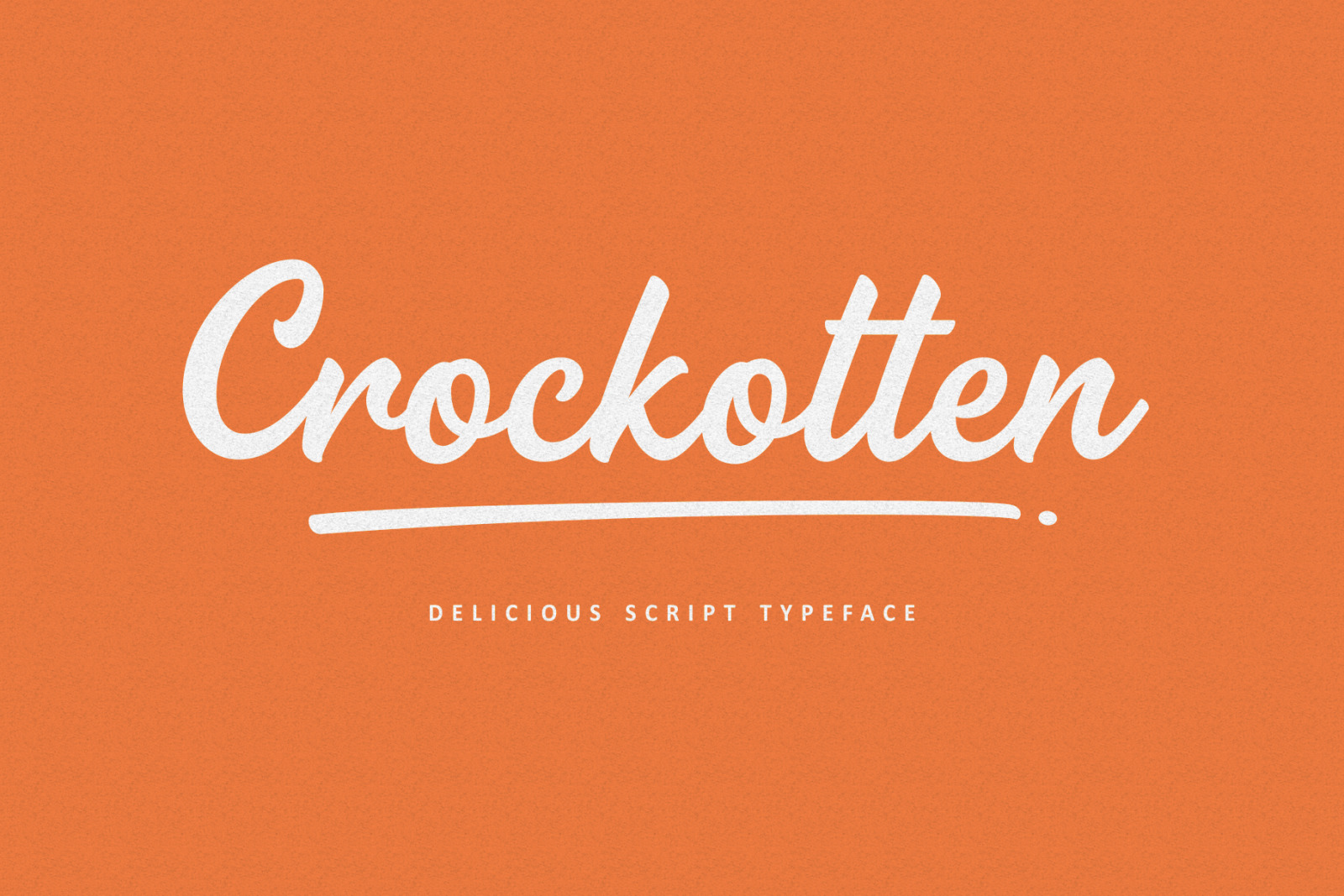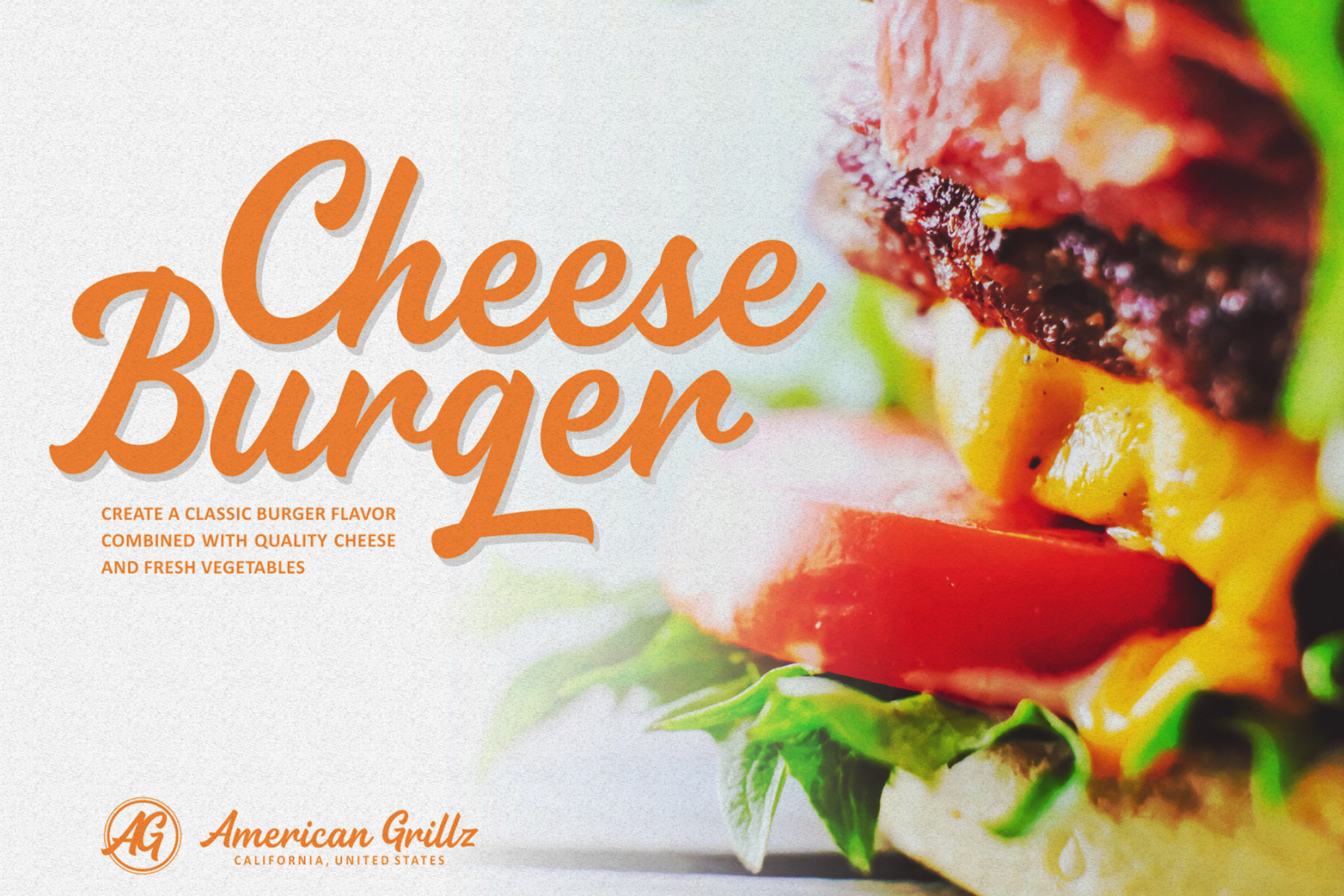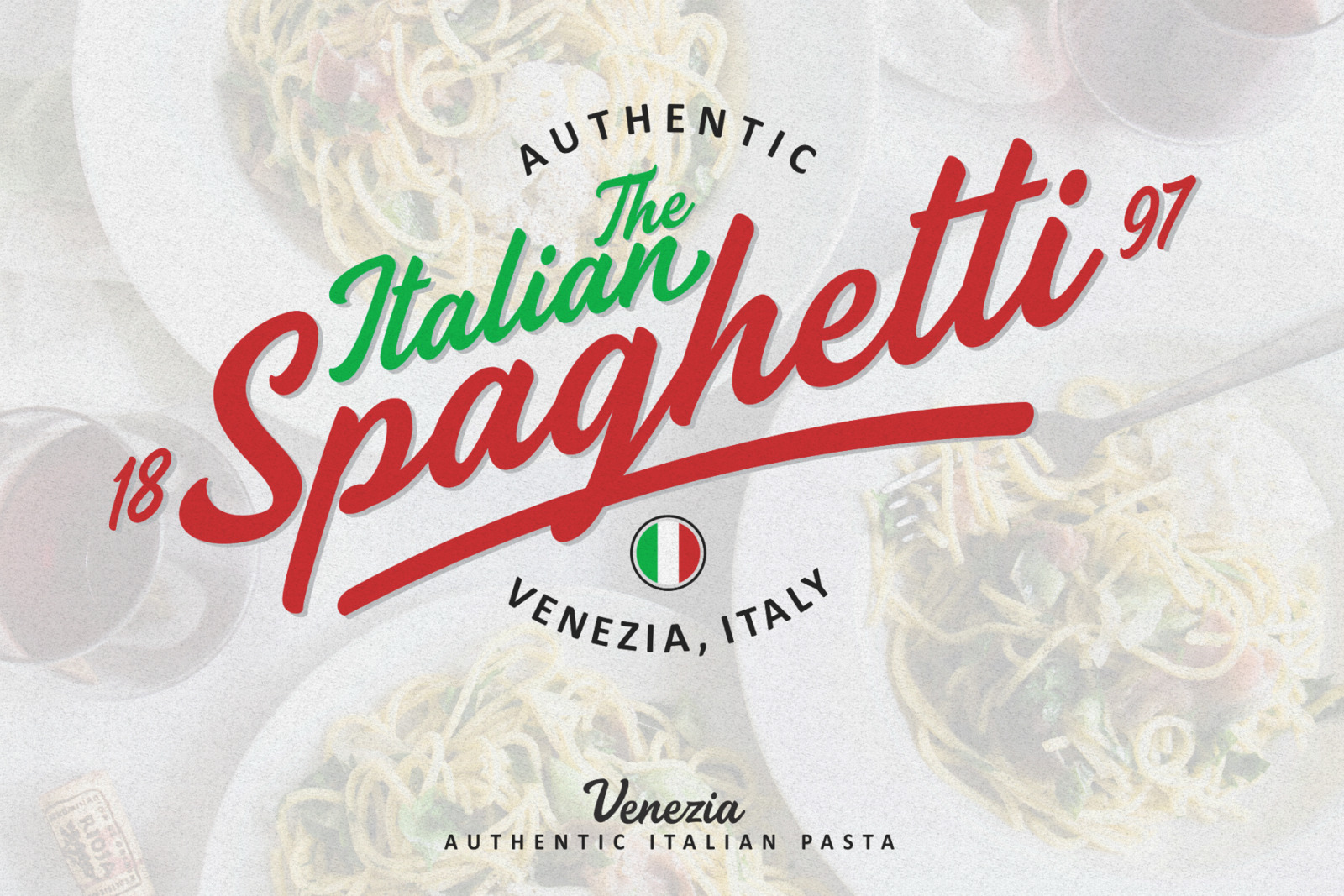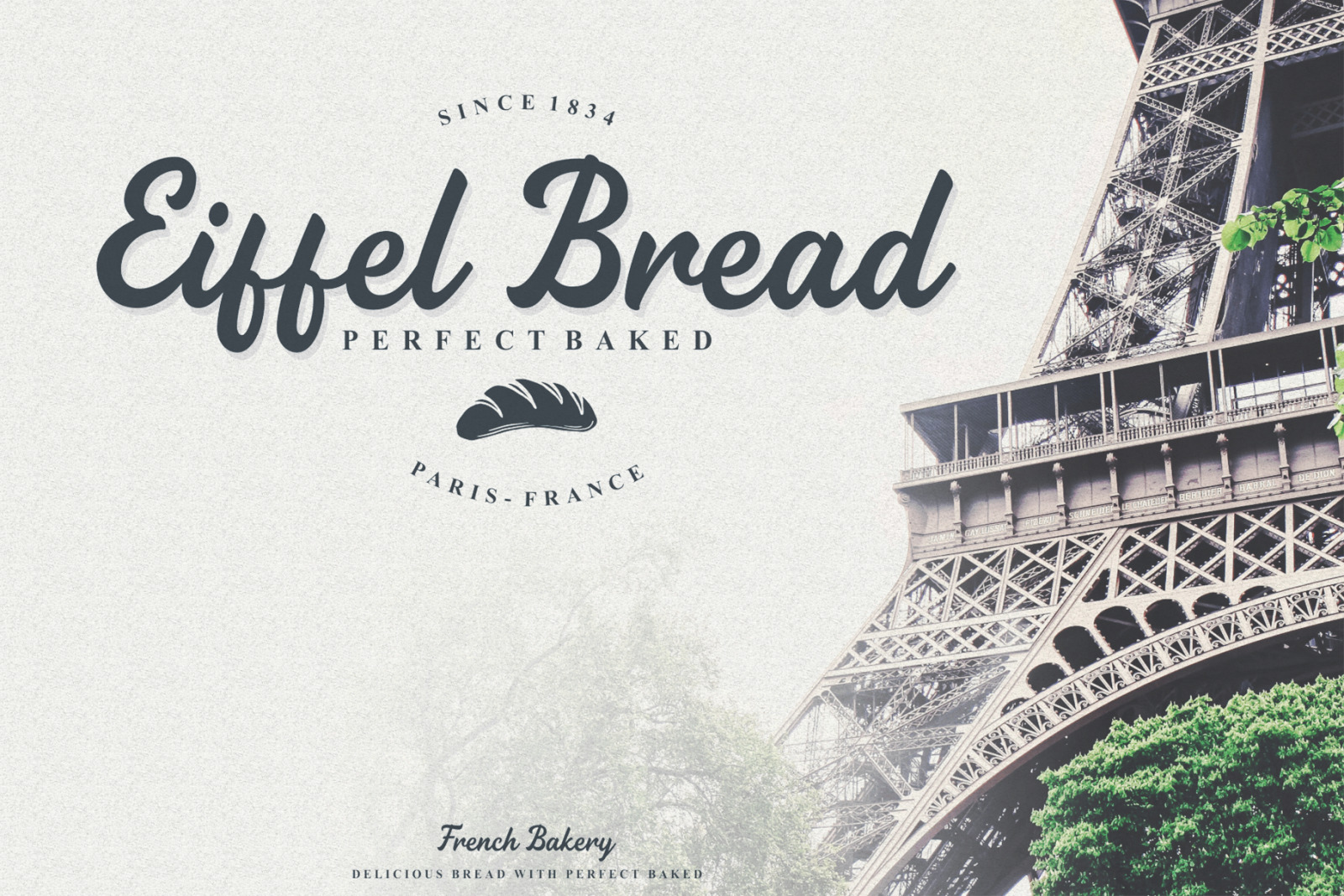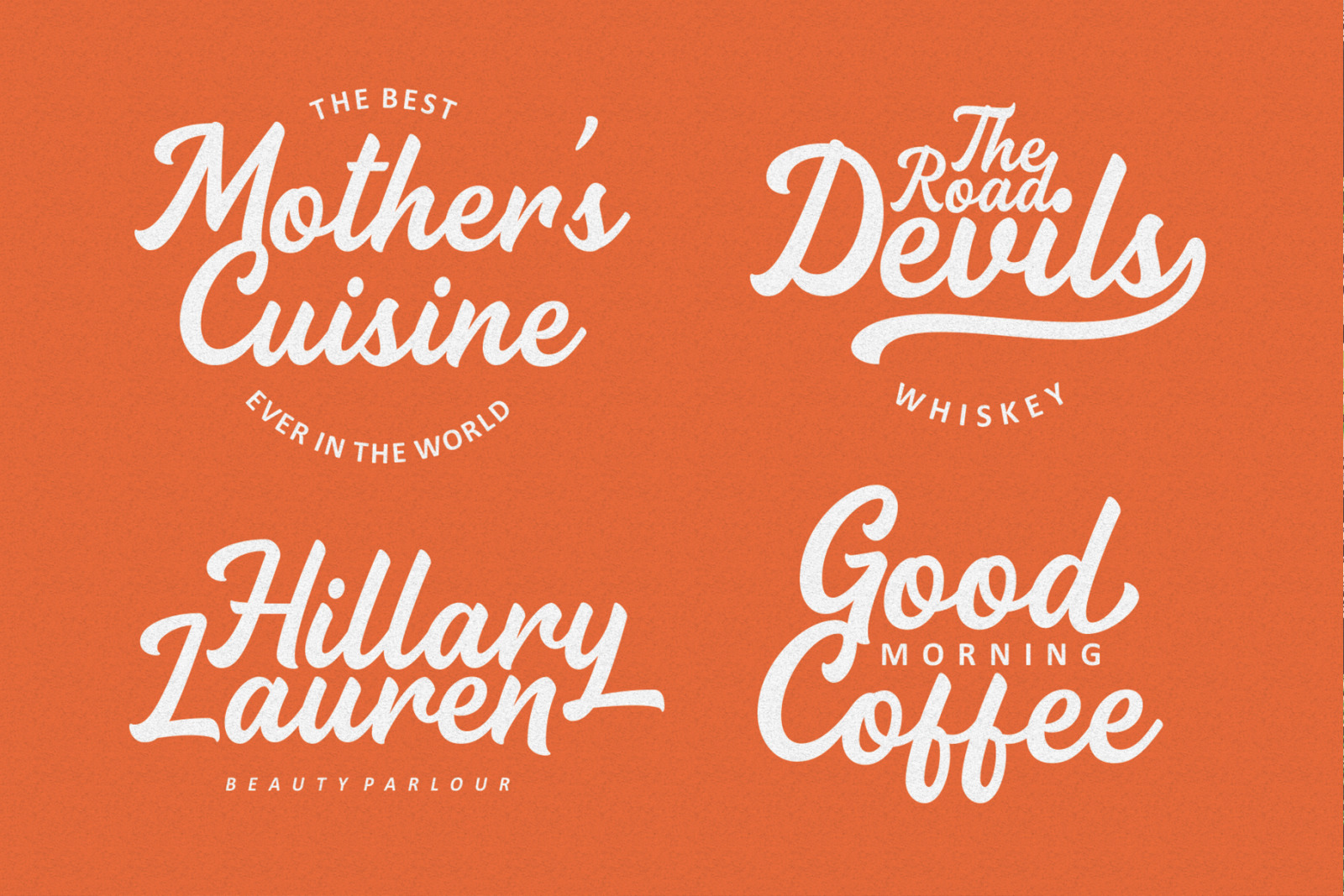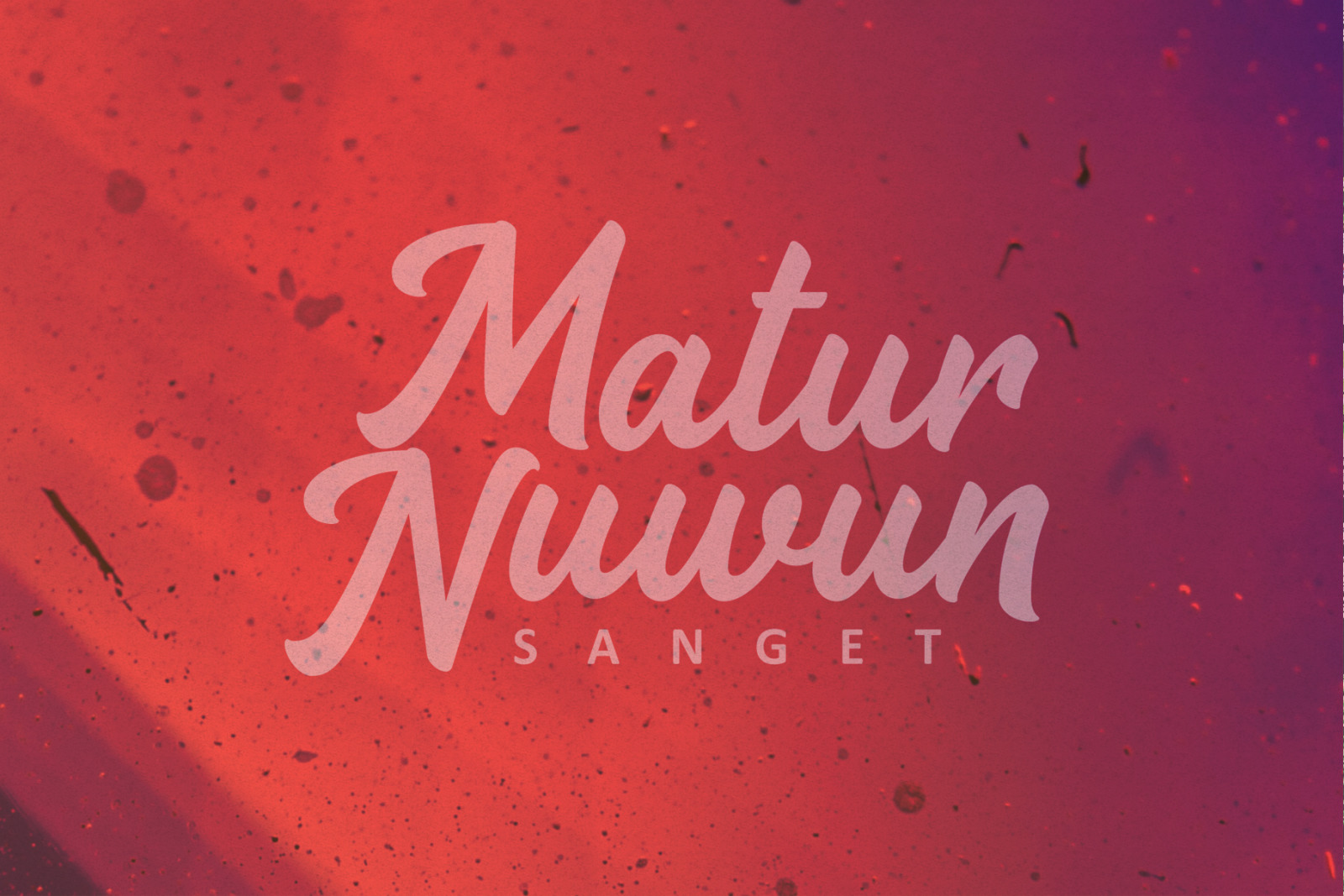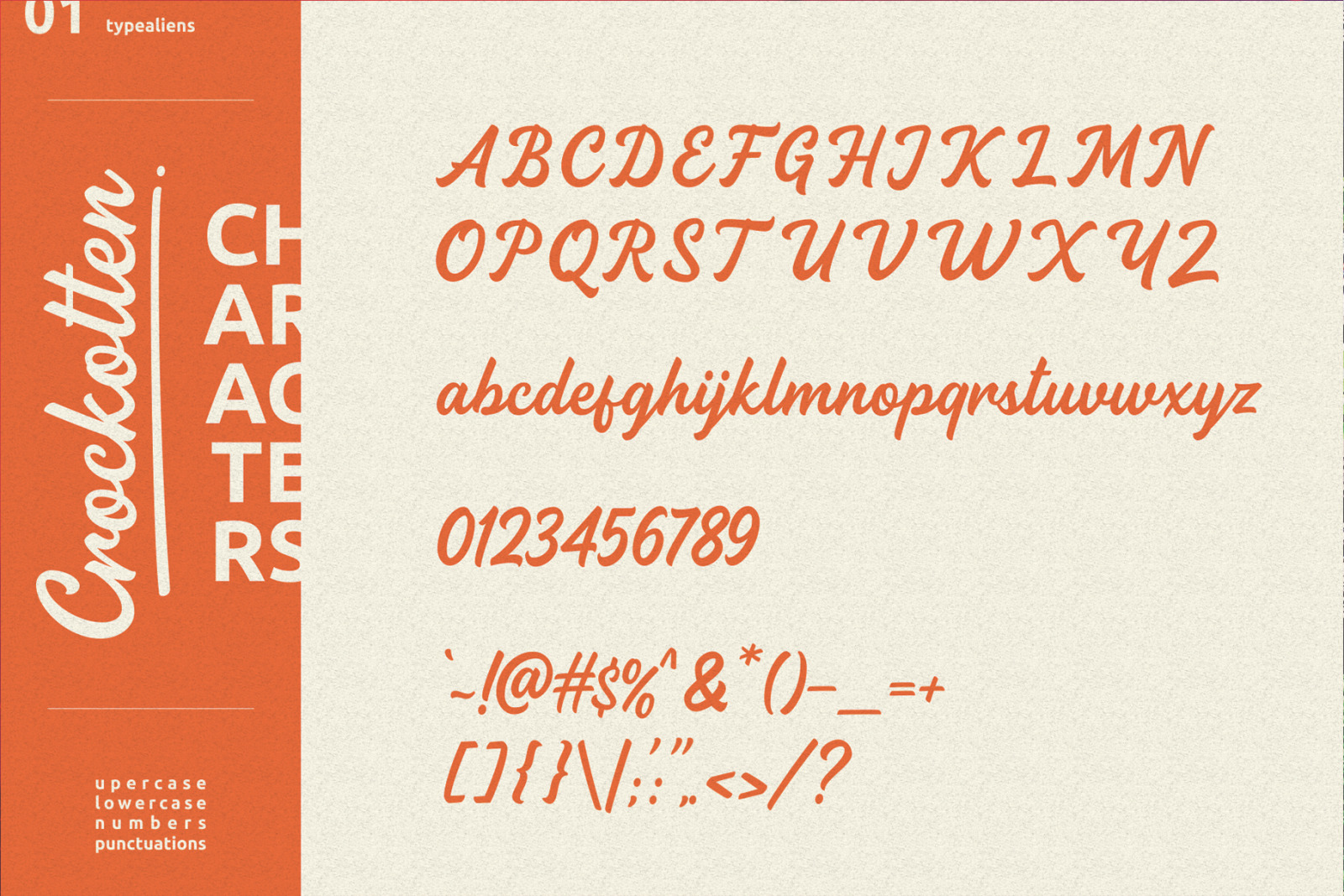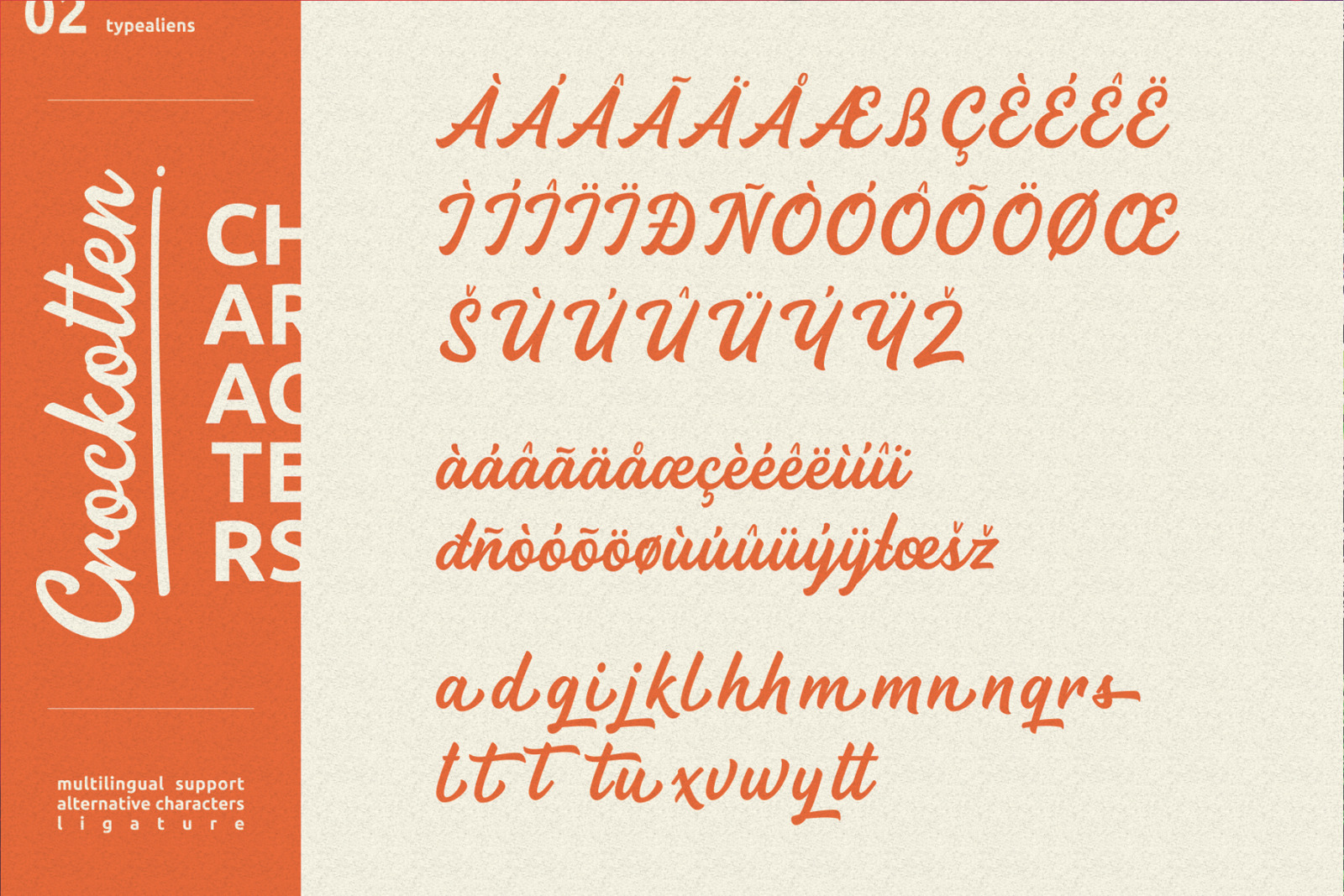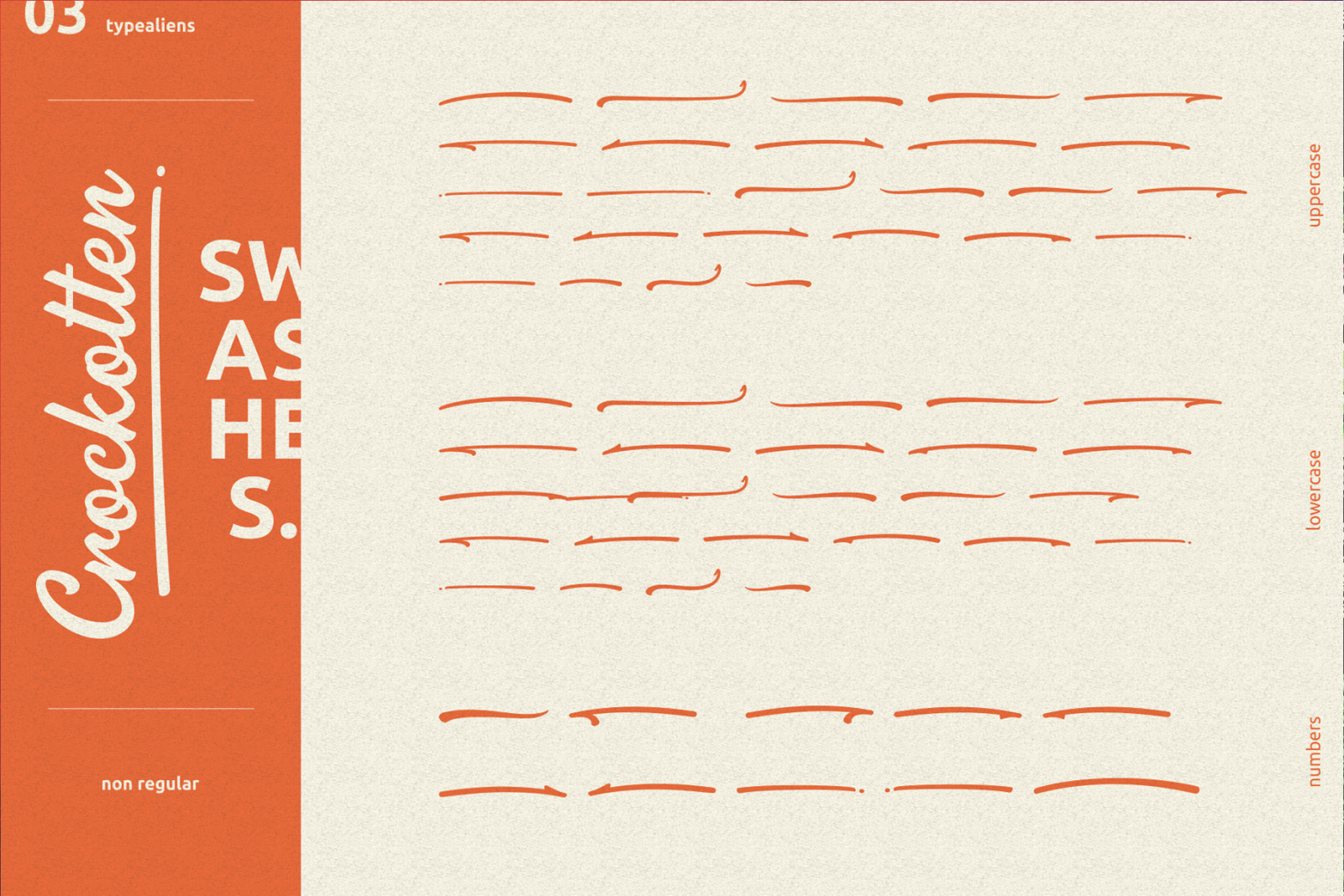
Crockotten Font
CROCKOTTEN is a script font that is very flexible to be processed into a unified design. Coupled with the existence of a minimalist swash that can be combined adds a cool impression when used as a design component, it is very well used for logotype with a casual but neat impression.
This font is also very interesting to be combined with food elements, both for making *logos, packaging designs, advertising designs, watermarks, menus, wedding invitation, greeting card* etc.
Simple, clean, casual but neat impression when using Crockotten fonts.
Features :
Ligatures.
Alternative Character
Support Multilingual Characters.